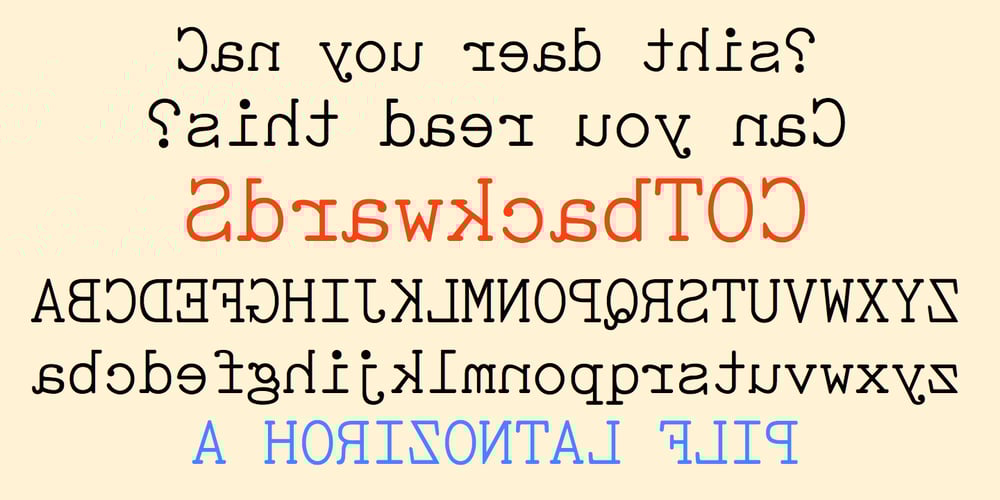
SdrawkcabTOC Font Family was designed by Robert Schenk and published by Ingrimayne Type. SdrawkcabTOC contains 1 styles and family package options. SdrawkcabTOC allows one to create mirror writing, that is, writing which looks correct when viewed in a mirror. To understand why it is named as it is, print out the name “Sdrawkcab” using the typeface and hold it up to a mirror. It is derived from the font TiredOfCourier.